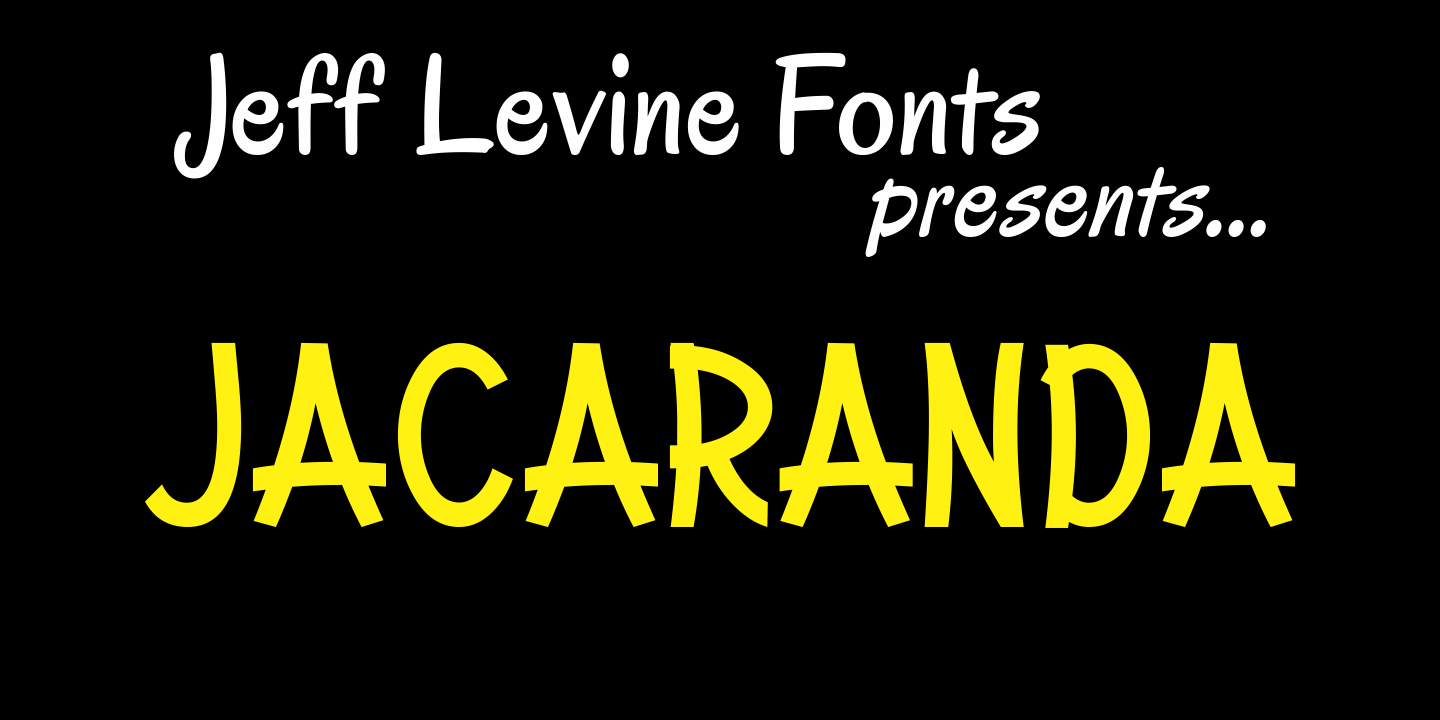
Jacaranda
Jacaranda JNL is a casual and fun font – resembling lettering made with the broad side of a chisel-tipped marker. Perfect for anything that is relaxed and not-too-serious, it is flexible and versatile for many ad projects. Font Styles: